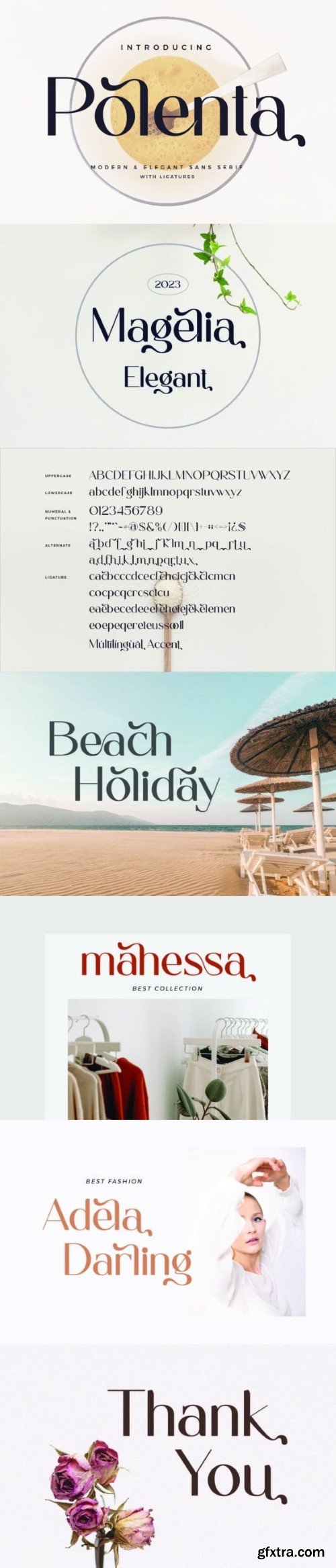
波特纳字体
Polenta Sans Font Typeface inspired by the famous minimalist logo perfect for the purposes of designing templates, brochures, videos, advertising branding, logos, invitation, layout design, elegant crafting, beauty design and other.
– Ligatures
– International Accent